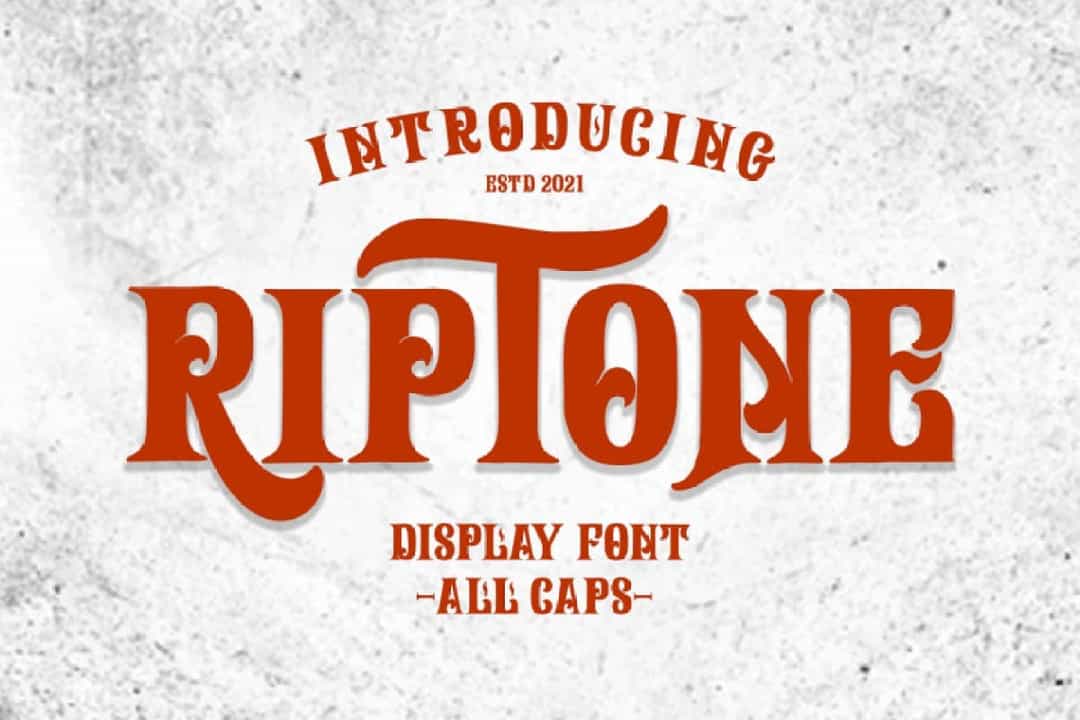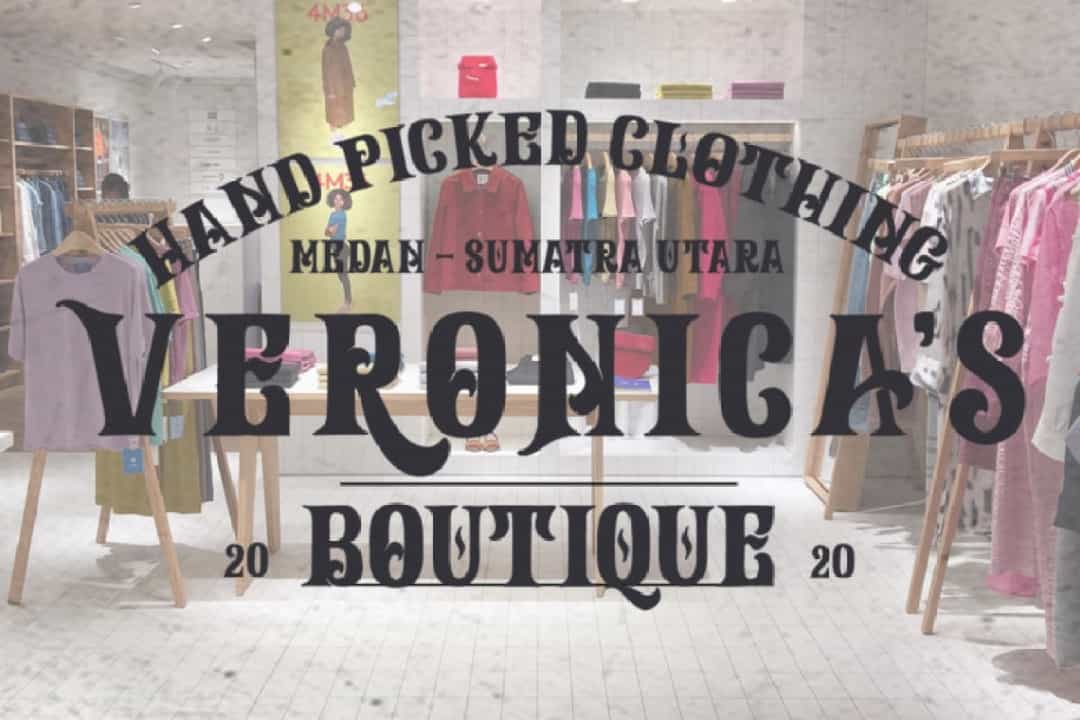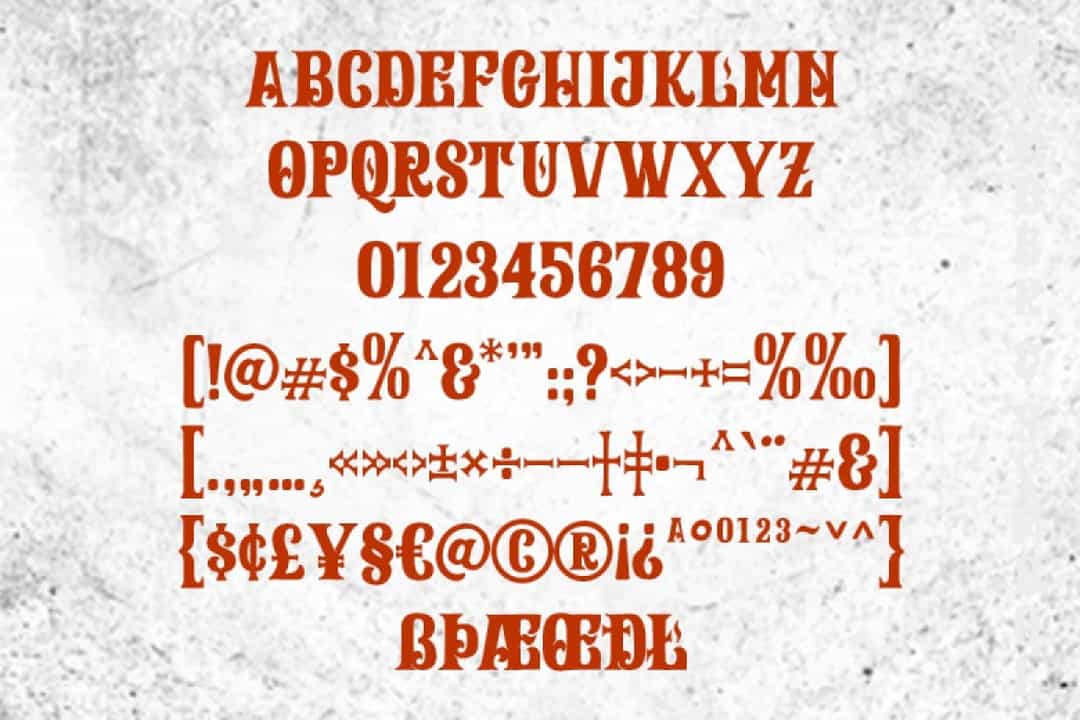
Riptone is an imposing and strong font featuring lettered characters. This font’s versatile lettered design makes it suitable for many creative uses such as titles and letterheads as well as stationery projects. Plus it is PUA encoded, meaning you have access to all its glyphs, swashes and symbols with ease!